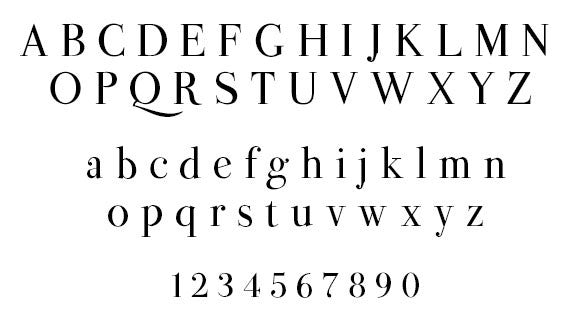
Free Valentina font
Take a look at this miraculous free valentina font. Freebies Bug has created this amazing and beautiful font. This is absolutely fancy font so you can easily make world-class designs.